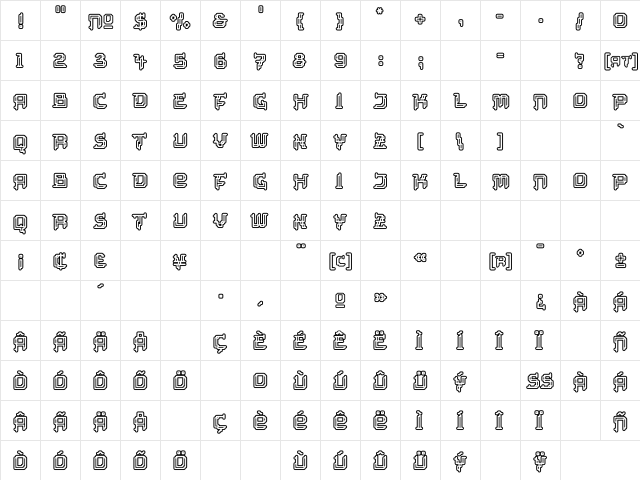
Tipi Electric Display
Design Context for Tipi Typeface
Tipi channels digital-age aesthetics through its sharp, structured letterforms — ideal for brands that want to signal innovation.